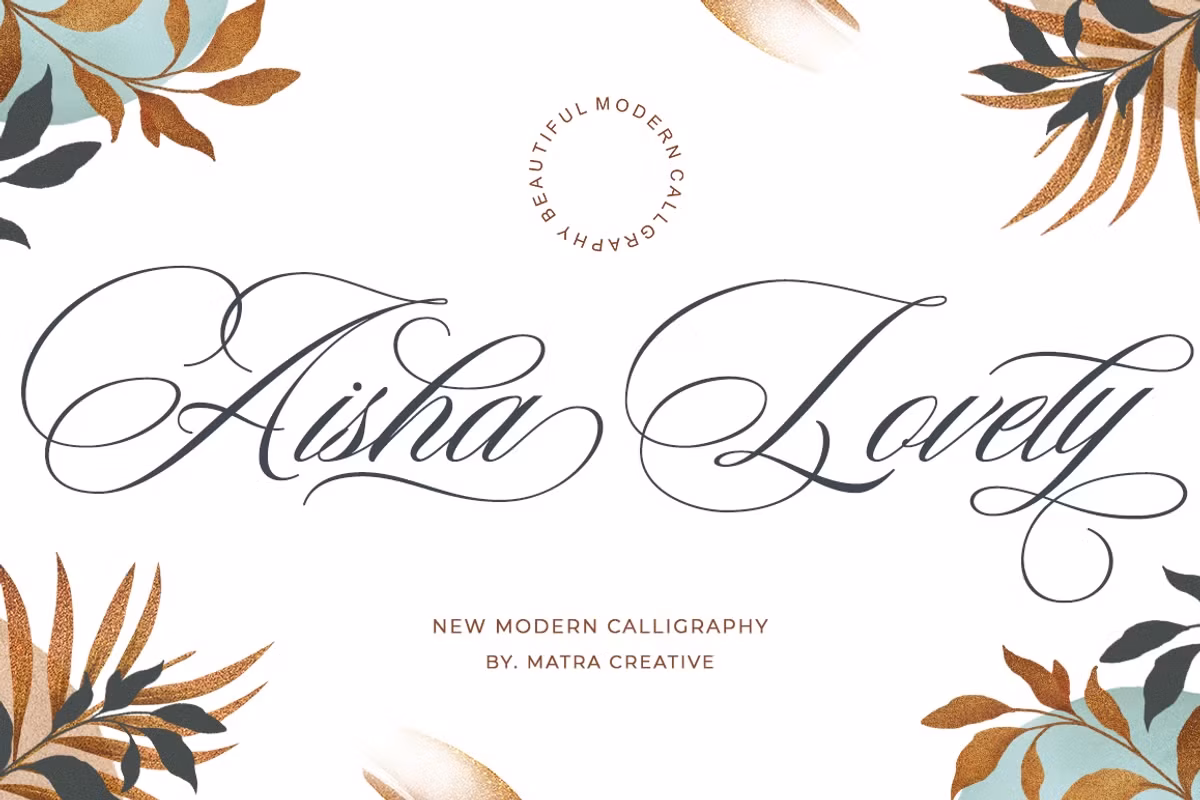
Aisha Lovely Font Free Download is a charming and elegant handwritten script typeface that adds a personal, warm touch to your designs. With its fluid, graceful strokes and delicate, natural curves, Aisha Lovely is perfect for wedding invitations, branding, social media graphics, greeting cards, and any project that requires a sweet, refined handwritten look.
This font includes uppercase and lowercase letters, numerals, punctuation, and beautiful ligatures, making it versatile for creating smooth and flowing typography with an authentic hand-lettered feel. Its gentle, romantic style is ideal for both casual and elegant designs.
Whether you're designing for a cozy brand, crafting a personal invitation, or creating heartfelt stationery, Aisha Lovely Font Free Download brings beauty and elegance to your work. Feel free to use it for personal or mockup projects, and be sure to purchase the appropriate license for commercial use. Add a touch of elegance and charm with this lovely handwritten script font.